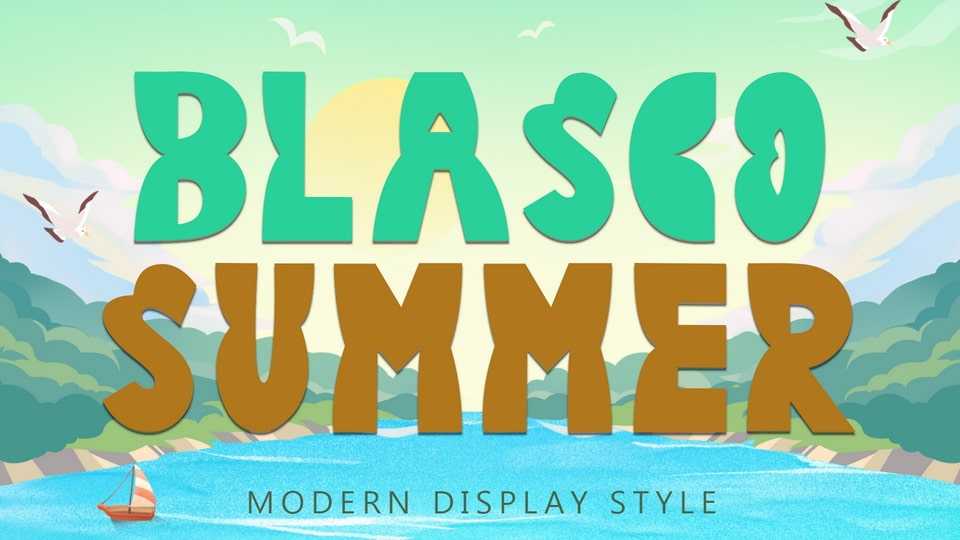
Download Blasco Summer font, a unique and elegant display typeface. It is very suitable for banners, posters, prints, branding, stickers, summer, holiday, spring, camping, holiday, vacations and others.